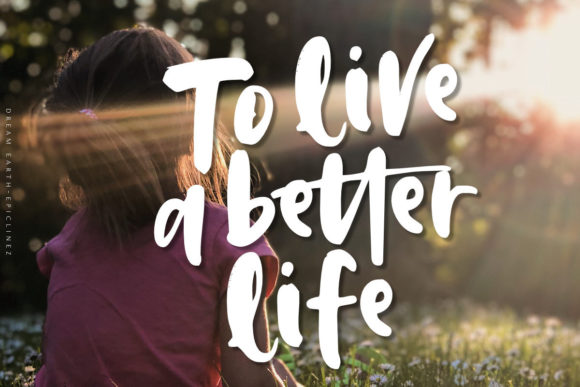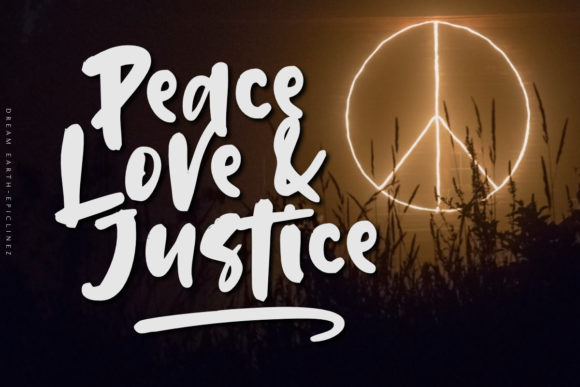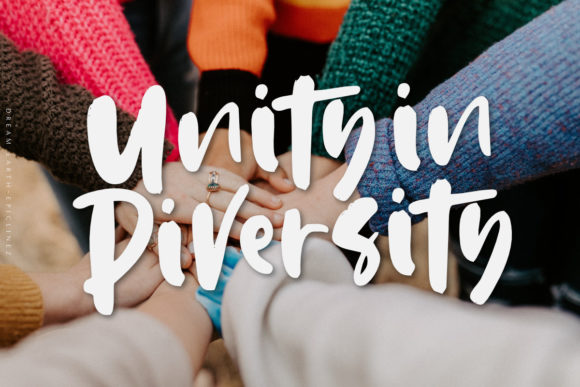
Dream Earth Font: The Perfect Handwritten Font for Your Design Needs
Are you a designer or crafter looking for a unique and stylish font to elevate your designs? Look no further than the Dream Earth Font. This cool, brushed, and relaxed handwritten font is perfect for a variety of design projects, including t-shirts, sportswear, logos, advertisements, clothing, and more.
What is Dream Earth Font?
Dream Earth Font is a carefully crafted handwritten font that exudes a sense of calmness and serenity. Its brushed texture gives it a relaxed and informal feel, making it perfect for designs that require a personal touch. The font’s unique characters and letters are designed to be eye-catching and distinctive, ensuring that your designs stand out from the crowd.
Key Features of Dream Earth Font
- Handwritten style: Dream Earth Font is a handwritten font that mimics the natural flow of handwriting, giving it a personal and authentic feel.
- Brushed texture: The font’s brushed texture adds a tactile quality to your designs, making them feel more organic and earthy.
- Relaxed and informal: Dream Earth Font is perfect for designs that require a laid-back and casual vibe.
- Highly versatile: This font can be used for a wide range of design projects, from t-shirts and sportswear to logos and advertisements.
Uses for Dream Earth Font
Dream Earth Font is an incredibly versatile font that can be used for a variety of design projects. Here are some ideas to get you started:
- T-shirts and apparel: Create eye-catching t-shirt designs that will stand out from the crowd.
- Sportswear and athletic wear: Add a personal touch to sportswear and athletic wear with this unique font.
- Logos and branding: Use Dream Earth Font to create distinctive logos and branding materials that reflect your company’s personality.
- Advertisements and marketing materials: Add a touch of personality to your advertisements and marketing materials with this eye-catching font.
- Clothing and fashion: Use Dream Earth Font to create stylish and eye-catching clothing and fashion designs.
Why Choose Dream Earth Font?
So why choose Dream Earth Font for your design needs? Here are just a few reasons:
- Unique and distinctive: Dream Earth Font is a one-of-a-kind font that will set your designs apart from the crowd.
- Easily readable: Despite its handwritten style, Dream Earth Font is highly legible and easy to read.
- High-quality design: This font is carefully crafted to ensure that it looks great in any design.
- Versatile: Dream Earth Font can be used for a wide range of design projects, making it a great addition to any designer’s toolkit.
In conclusion, Dream Earth Font is a cool, brushed, and relaxed handwritten font that is perfect for designers and crafters looking for a unique and stylish font. Its versatility, readability, and high-quality design make it an excellent choice for a wide range of design projects. Whether you’re creating t-shirts, logos, advertisements, or clothing, Dream Earth Font is sure to elevate your designs and help you stand out from the crowd.